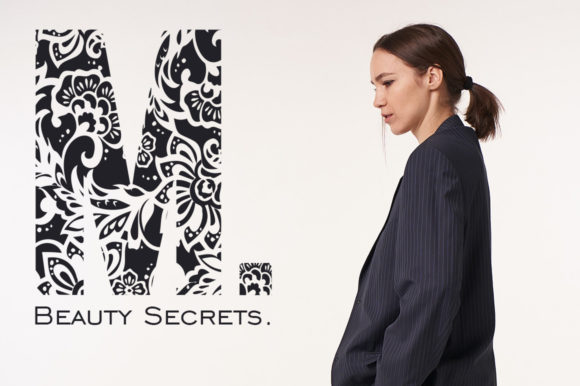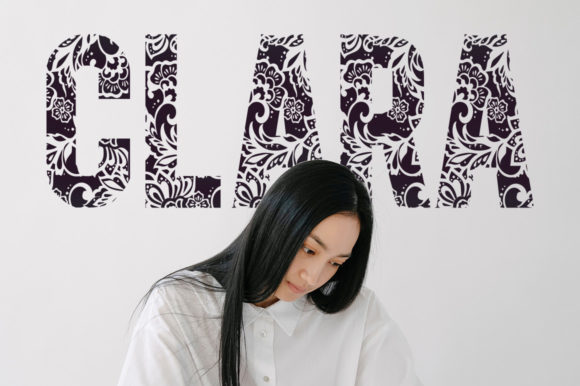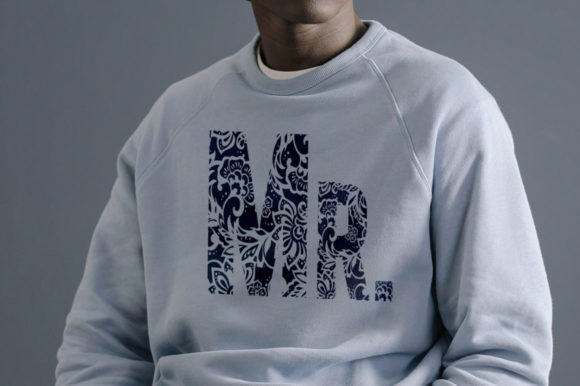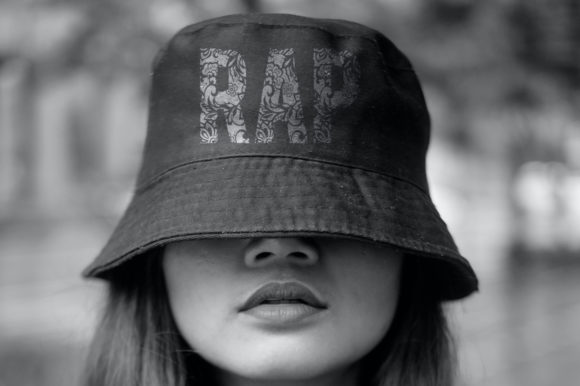
The Art of Expression: Discovering the Batiku Font
Do you remember that moment when you stumbled upon the perfect font for your latest design project? The moment when the words just flowed effortlessly onto the page, and the entire concept came together in a beautiful, cohesive way? For many designers, this is a moment of pure magic, and it’s exactly what the Batiku Font aims to evoke. Inspired by the traditional batik style, this captivating decorative font is perfect for adding a touch of elegance and sophistication to any project.
The Batiku Font is more than just a stylish addition to your designs – it’s a way to add a unique and distinctive touch that sets your projects apart from the rest. Whether you’re creating company names, wedding invitations, or t-shirts, the Batiku Font is a valuable asset for any designer looking to add a little extra flair to their work.
Batikku Font Key Features
- Font Family: Batikku Font is a unique, hand-painted font designed to evoke the traditional batik art of Indonesia.
- Unique Characteristics: The Batikku Font features intricate, hand-painted designs and subtle texture, giving it a one-of-a-kind look and feel.
Batikku Font Review
First impressions are key, and the Batikku font certainly delivers with its unique and exotic look ✨. The font’s blend of traditional and modern elements makes it perfect for designers looking to add a touch of cultural flair to their projects. The bold lines and ornate patterns evoke the traditional batik textiles from which the font draws its inspiration, making it a great choice for designers working on cultural or historical projects.
However, there are a few limitations to consider ⚠️. For one, the font can be a bit overwhelming when used in large blocks of text. The intricate patterns and bold lines can be visually taxing, making it difficult to read for extended periods of time. Additionally, the font’s compatibility can be a bit spotty, with some users reporting issues with certain operating systems or software.
Here are a few pros and cons to consider:
- Unique and exotic look ✨
- Perfect for cultural or historical projects
- Great for adding a touch of elegance and sophistication to designs
- Can be overwhelming when used in large blocks of text ⚠️
- May not be suitable for projects that require clear, easy-to-read text
Overall, I think the Batikku font is a great choice for designers who want to add a touch of cultural flair to their projects. While it may have some limitations, the font’s unique look and feel make it well worth considering for the right project.
The Batiku font is a unique and elegant script font that can add a touch of sophistication to your designs. In this guide, we will explore how to use Batiku font in various design applications.
To get the most out of the Batiku font, use it for:
- Birth announcements and baby shower invitations
- Special occasion cards and gift tags
Remember to adjust the font size and color to your liking, and don’t be afraid to experiment with different combinations to achieve the desired look.